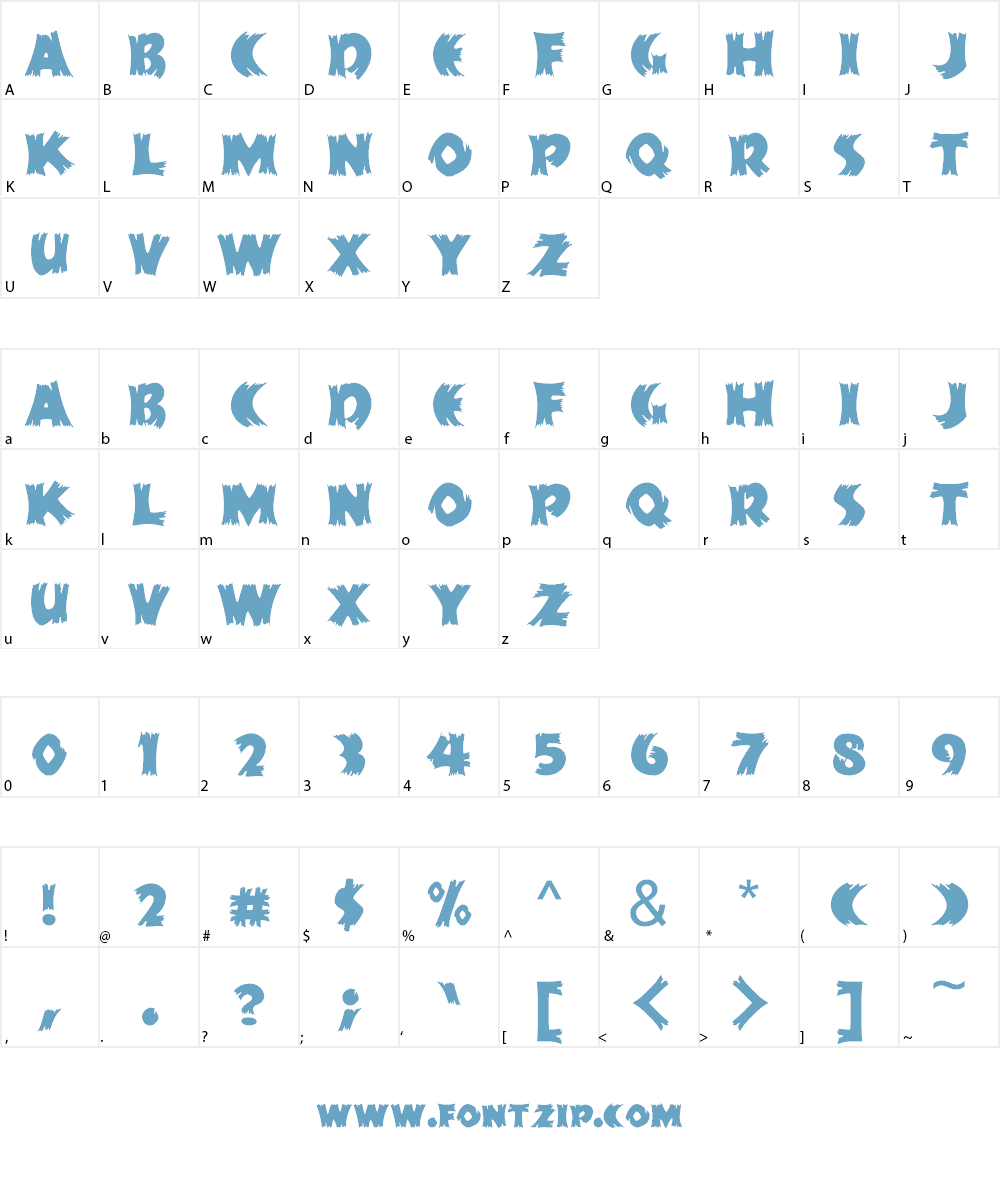
HFF Splintered Dream is based on Split Caps, from page 81 of "Special Effects and Topical Alphabets: 100 Complete Fonts" by Dan X. Solo, first published by Dover Publications in 1978. Split Caps is also listed in page 92 0f "The Solotype Catalog of 4,147 Display Typefaces" as Split.
Another style of Split, Split Wide, is in page 75 of "Rustic and Rough-Hewn Alphabets: 100 Complete Fonts".